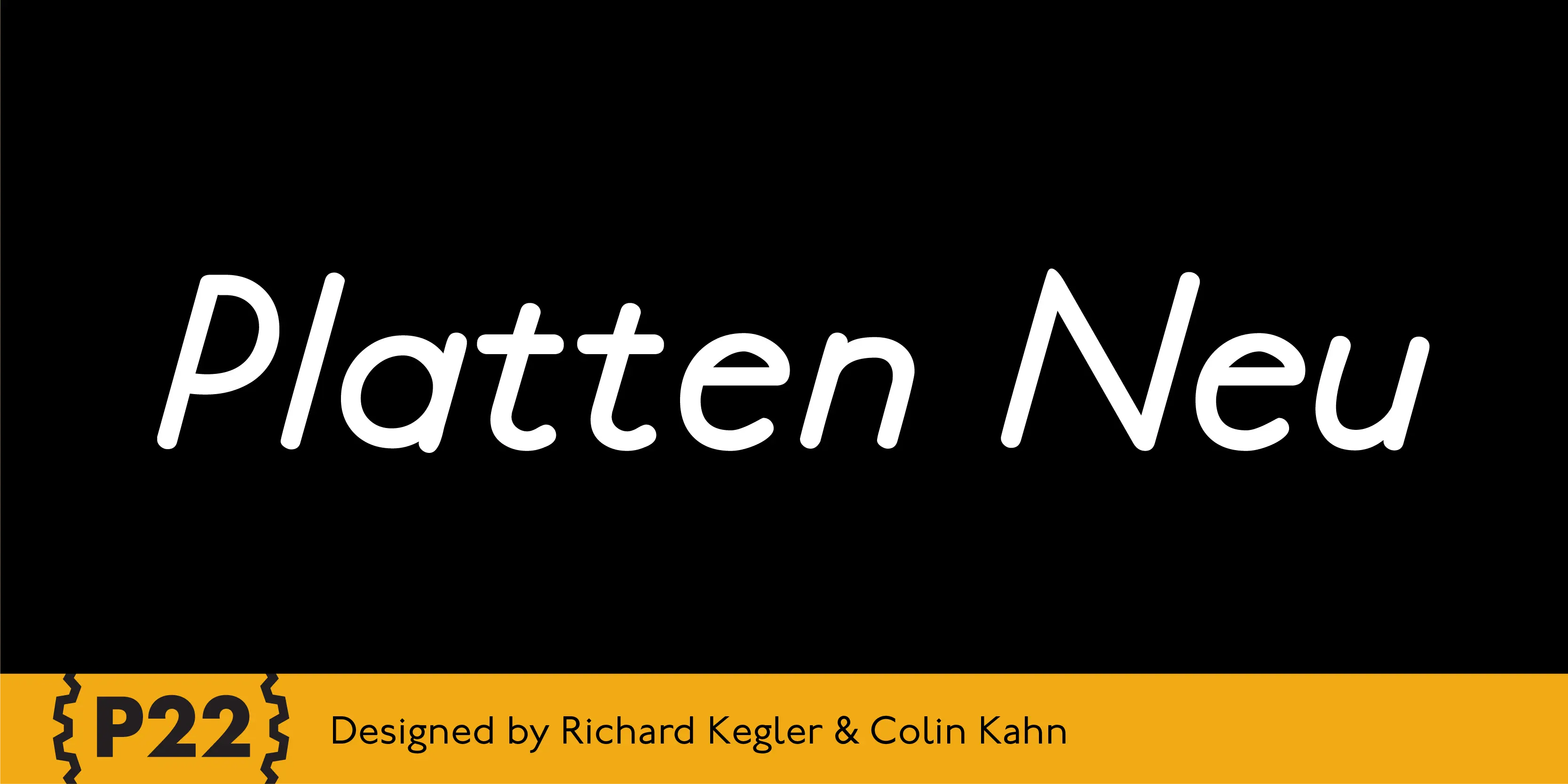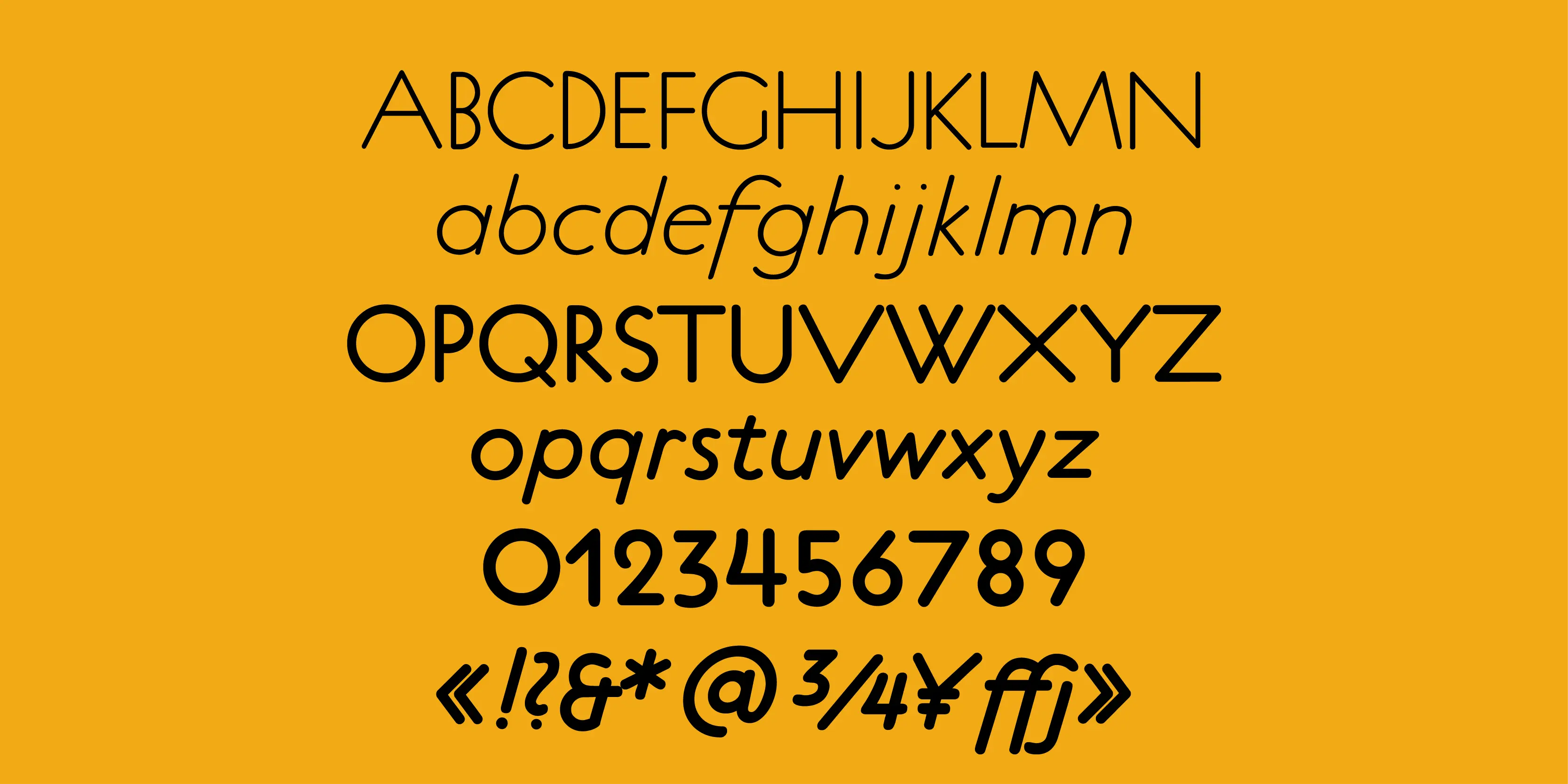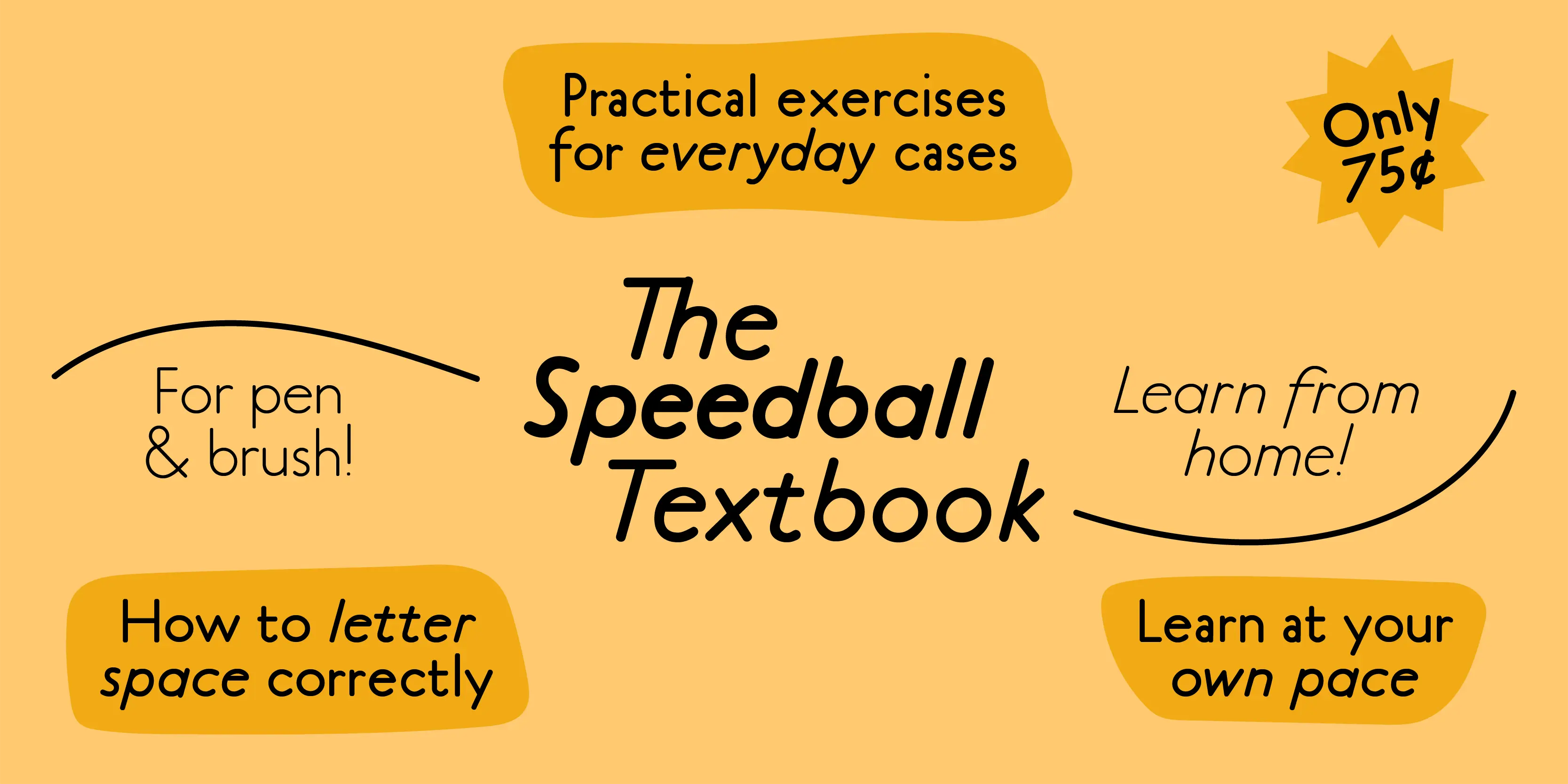
Platten Neu Font Family
Platten Neu
Platten is based on lettering found in German fountain pen practice books from the 1920s (you may have seen the similar Speedball books in the US). This round tip pen lettering is comparable to the basic forms used in grammar school teaching alphabets, but with a few original characteristics. The Italic version has even more of these unusual features. Geometric & simple yet casual & timeless. Perfect for many uses.
• Fractions
• Old Style Numerals
• Slashed Zero
• Small Capitals
• Superscript